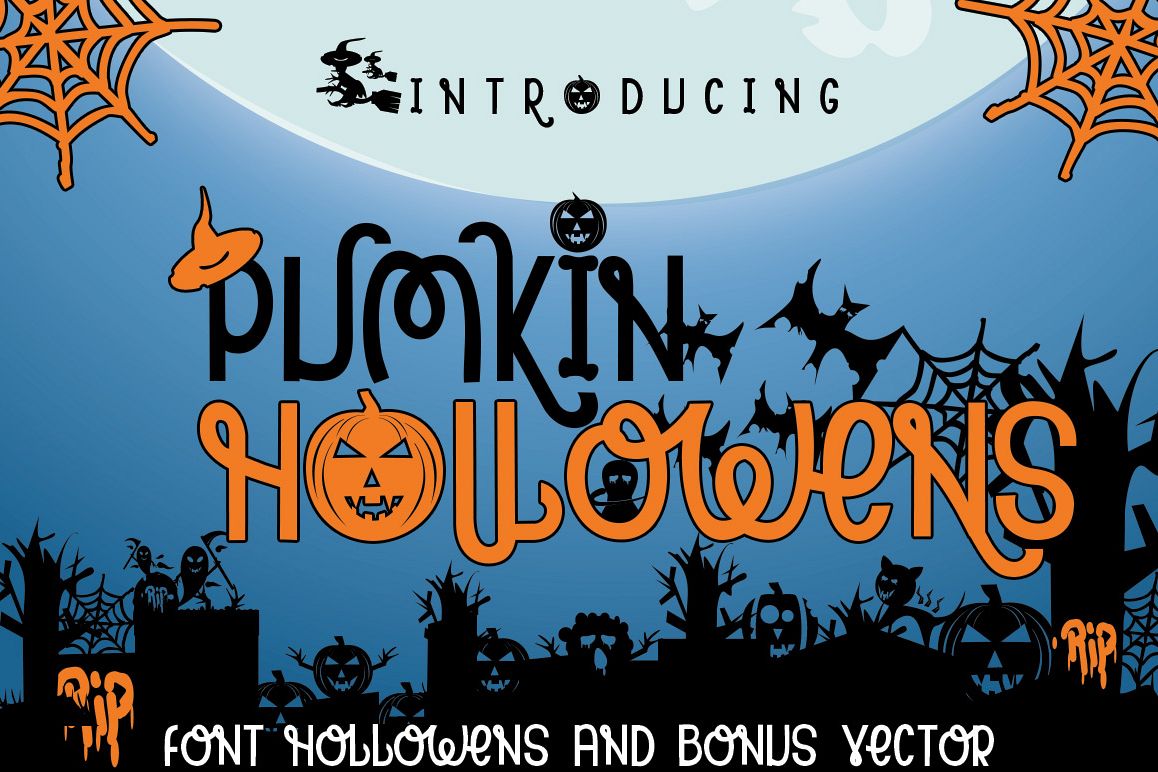
PUMKIN HOLLOWENS
PUMKIN HOLLOWENS This font was designed by handwriting, bonus vector include and it has a modern
and unique forms of calligraphy, the writing style cartoones and cutes vector  is very natural and multiple
language support.